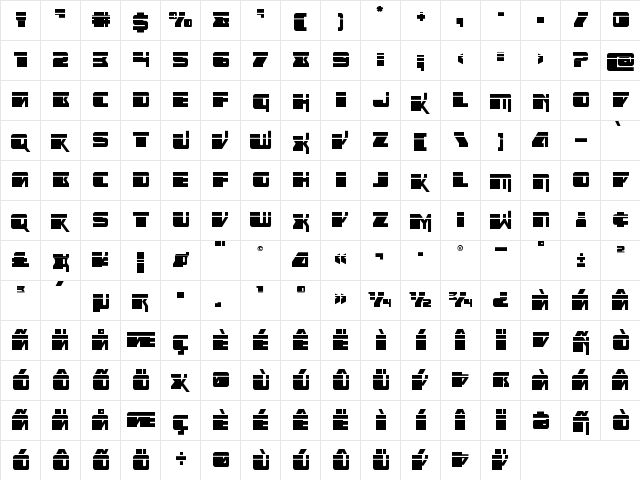
Space Runner Laser Regular
Regular ·  Daniel Zadorozny ·
DesignerDaniel Zadorozny
Design Context for Space Runner Laser Typeface
Space Runner Laser is a composed and adaptable typeface that performs quietly and consistently across a wide range of design contexts.